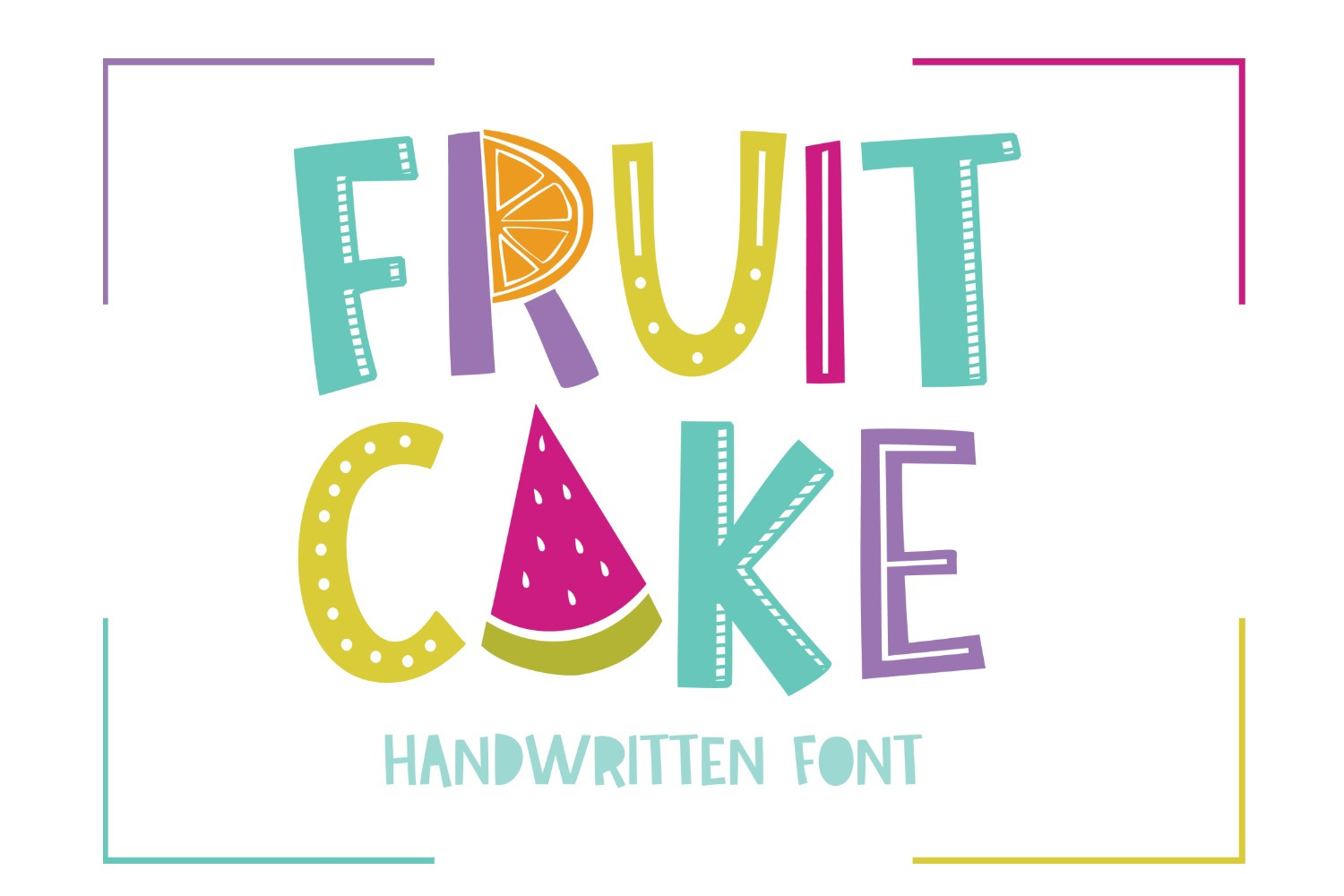
NEW! Fruit Cake Font
Fruit cake is bursing with handwritten, original charm! It includes true type and open type formats, and a few different styles so you can create the cutest design projects!
Fruit Cake Solid includes support for most European languages. Fruit Cake Fruity features a handful of different styles and supports Basic Latin (English).